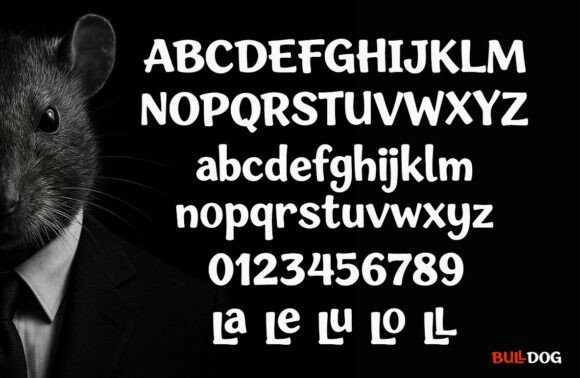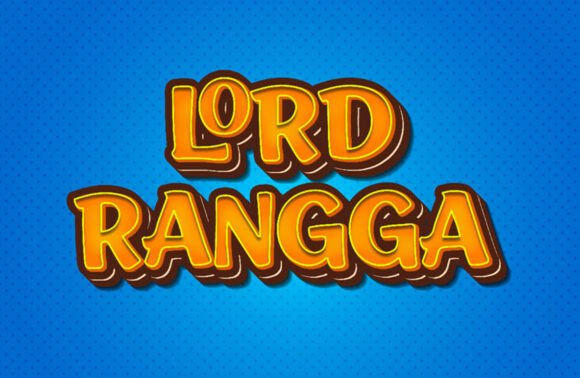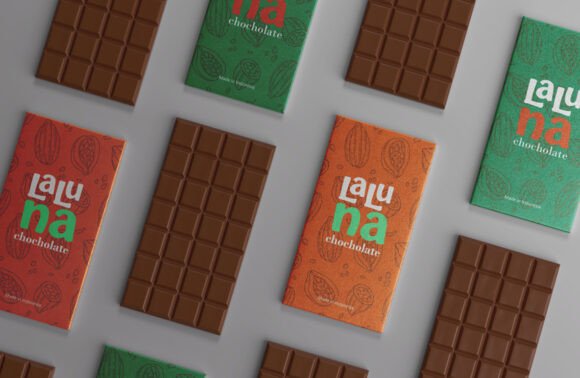
Bulldog Font: The Ultimate Typographic Companion for Whimsical Designs
In the world of typography, few fonts manage to capture the essence of whimsy and charm as effortlessly as the Bulldog font. This abundantly character-dense marker font draws its inspiration from the classic appeal of chalkboard signs that adorn cafés, bars, and bustling street markets. With its organically interconnected block letters, delightful ligatures, and rich variety of letterforms, Bulldog font is the perfect typographic companion for designers and crafters looking to add a touch of audacity and warmth to their projects.
The Inspiration Behind Bulldog Font
The Bulldog font is a masterful blend of traditional and modern elements, evoking the nostalgia of chalkboard signs while steering clear of a passé 80s aura. Its creator aimed to capture the authentic, hand-crafted feel of street market signs, infusing the font with a genuine warmth and character that is hard to find in digital typography. The result is a font that feels both vintage and contemporary, making it an excellent choice for a wide range of design applications.
Key Features of Bulldog Font
So, what makes Bulldog font so special? Here are some of its key features:
• Organically interconnected block letters: The font’s block letters are connected in a way that feels natural and effortless, creating a sense of fluidity and movement.
• Delightful ligatures: The font includes a range of ligatures that add a touch of whimsy and personality to your designs.
• Rich variety of letterforms: With a wide range of letterforms to choose from, you can create unique and varied designs that avoid monotony.
• PUA-encoded: The font is PUA-encoded, making it easy to access all glyphs, swashes, and alternate characters.
Perfect for Menus, Price Boards, and Branding
Bulldog font is the perfect choice for designers and crafters working on menus, price boards, and branding projects. Its warm, inviting character and authentic feel make it an excellent fit for:
• Restaurant and café menus: Add a touch of whimsy and charm to your menus with Bulldog font.
• Price boards and signage: The font’s clear, easy-to-read design makes it perfect for price boards and signage.
• Branding and packaging: Use Bulldog font to add a touch of personality and authenticity to your branding and packaging designs.
Why Choose Bulldog Font?
With so many fonts available, why choose Bulldog font? Here are just a few reasons:
• Unique and eye-catching: Bulldog font is sure to grab attention with its unique, whimsical design.
• Versatile: The font can be used for a wide range of design applications, from menus and price boards to branding and packaging.
• Easy to use: With its PUA-encoded design, accessing all glyphs, swashes, and alternate characters is effortless.
Font Name Bulldog Font
Author rulihoki studio
In conclusion, Bulldog font is a versatile, whimsical, and authentic typographic companion that is perfect for designers and crafters looking to add a touch of warmth and character to their projects. With its organically interconnected block letters, delightful ligatures, and rich variety of letterforms, Bulldog font is sure to become a go-to choice for menus, price boards, branding, and more.